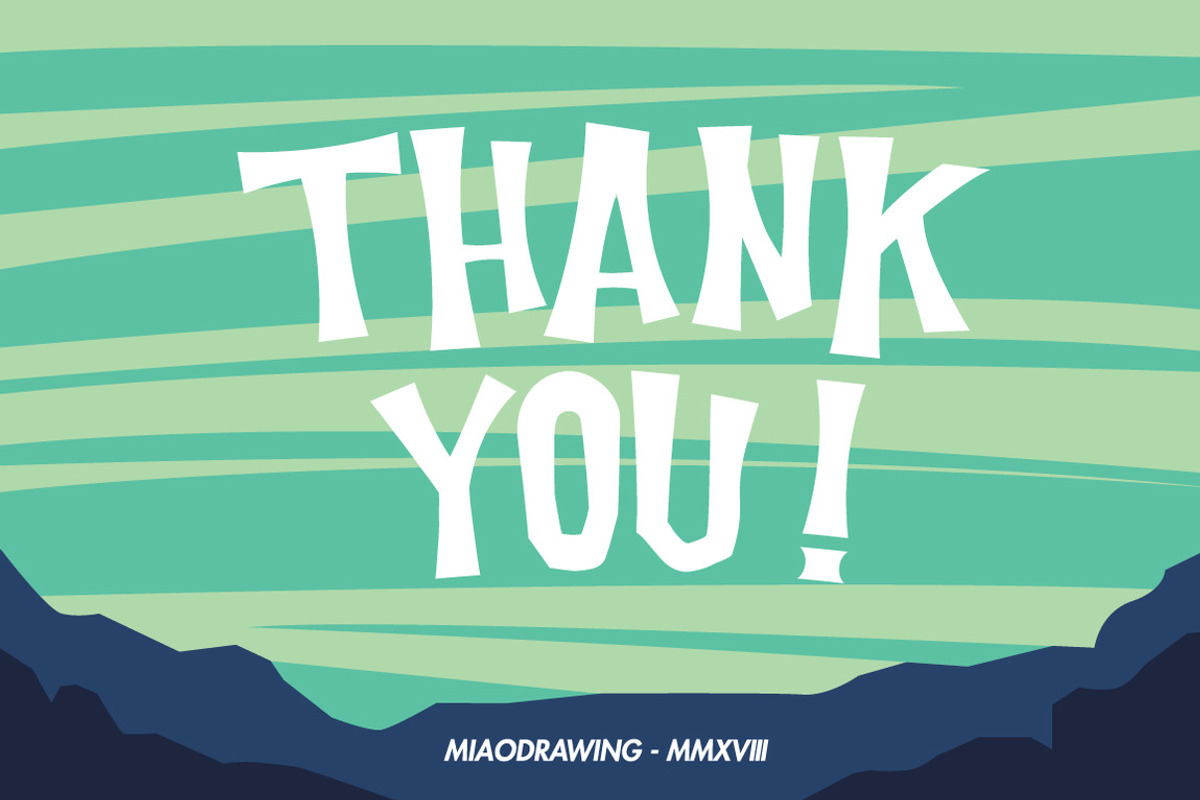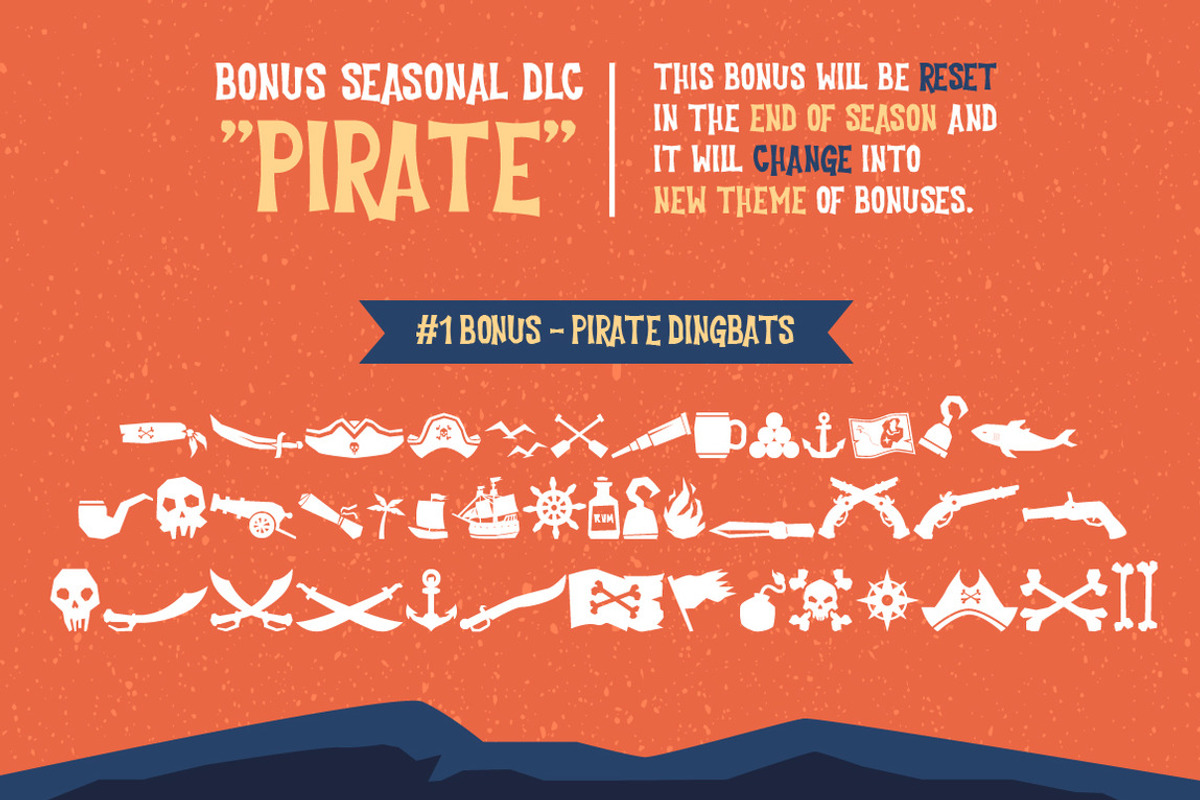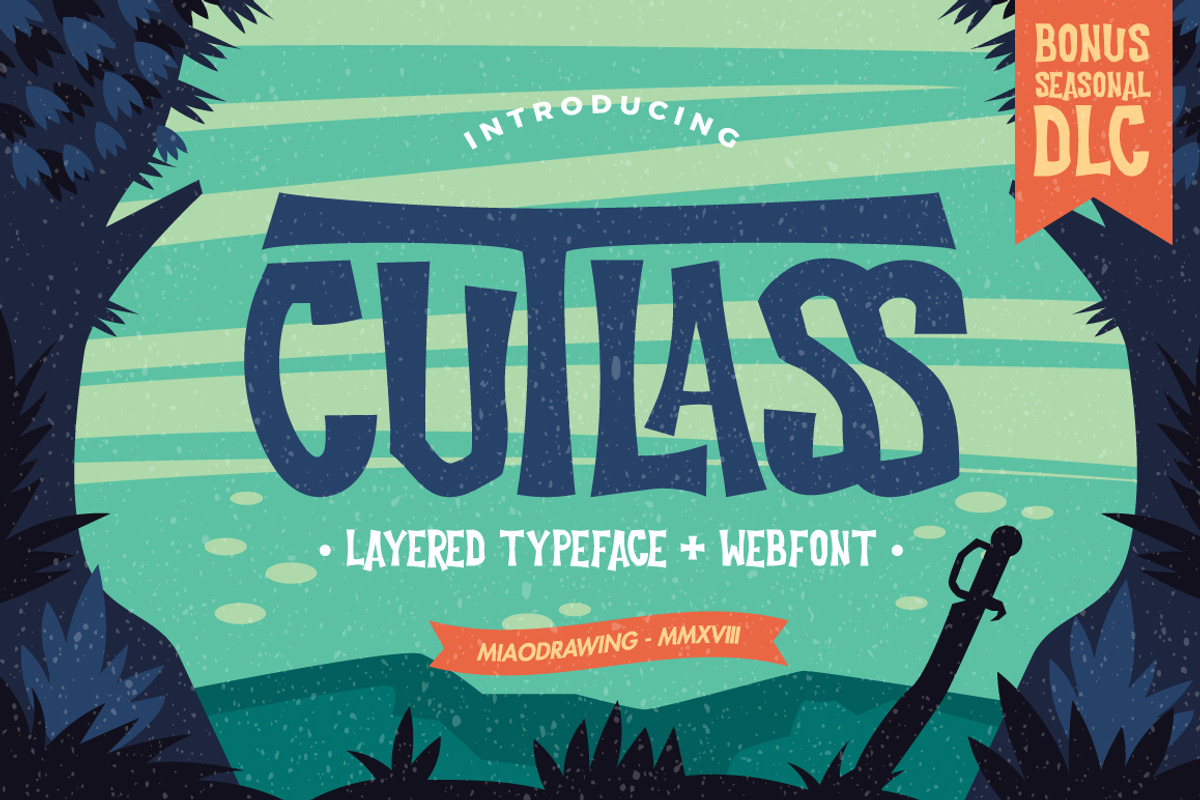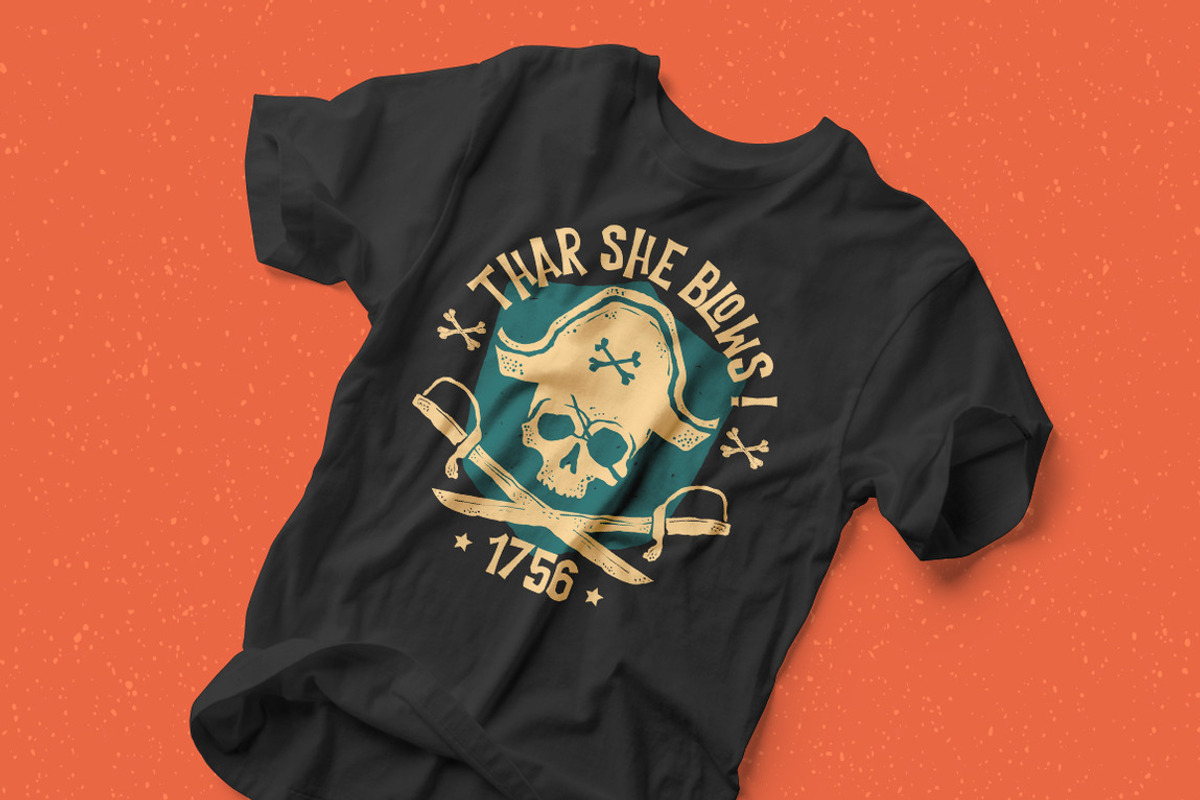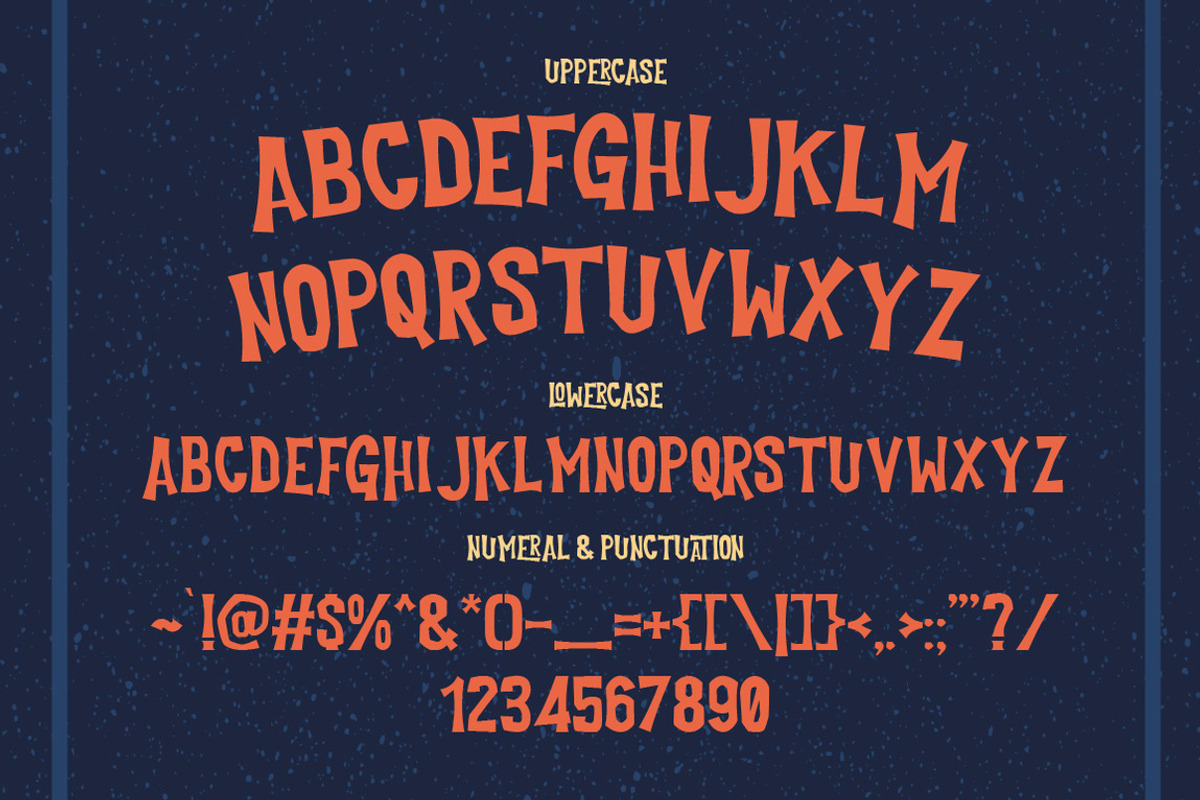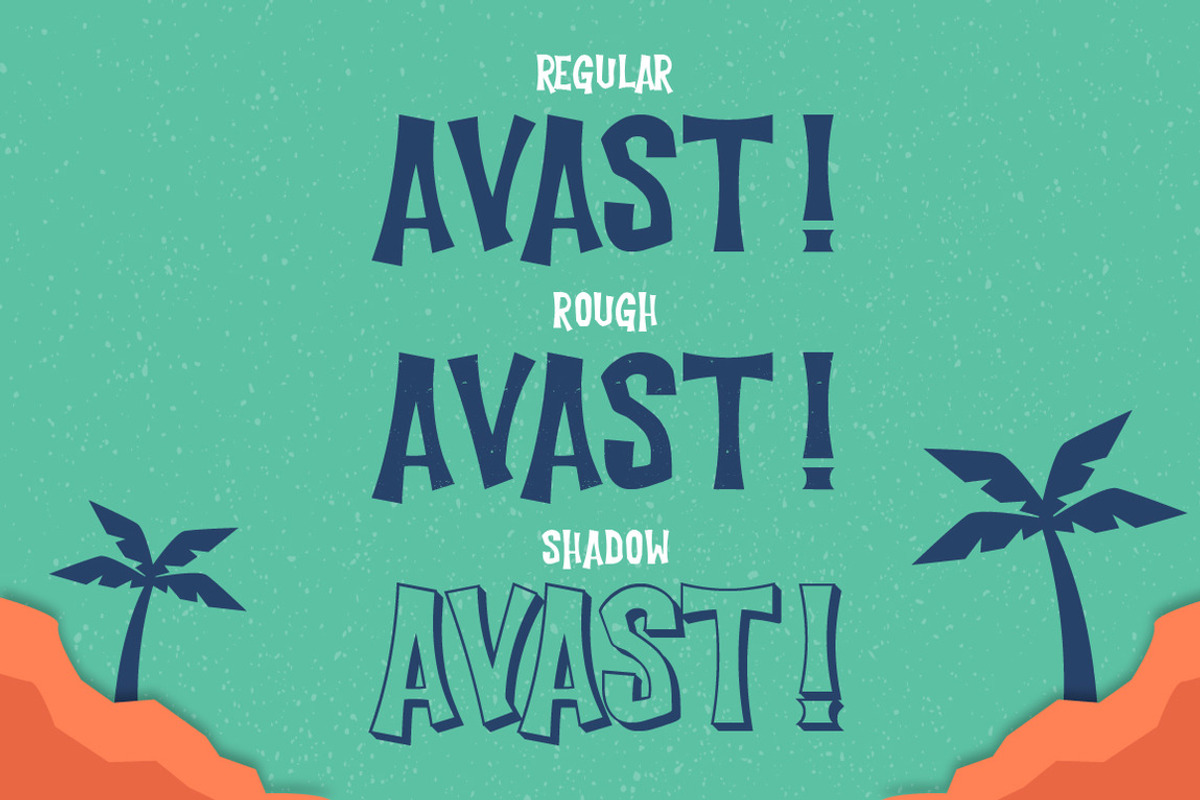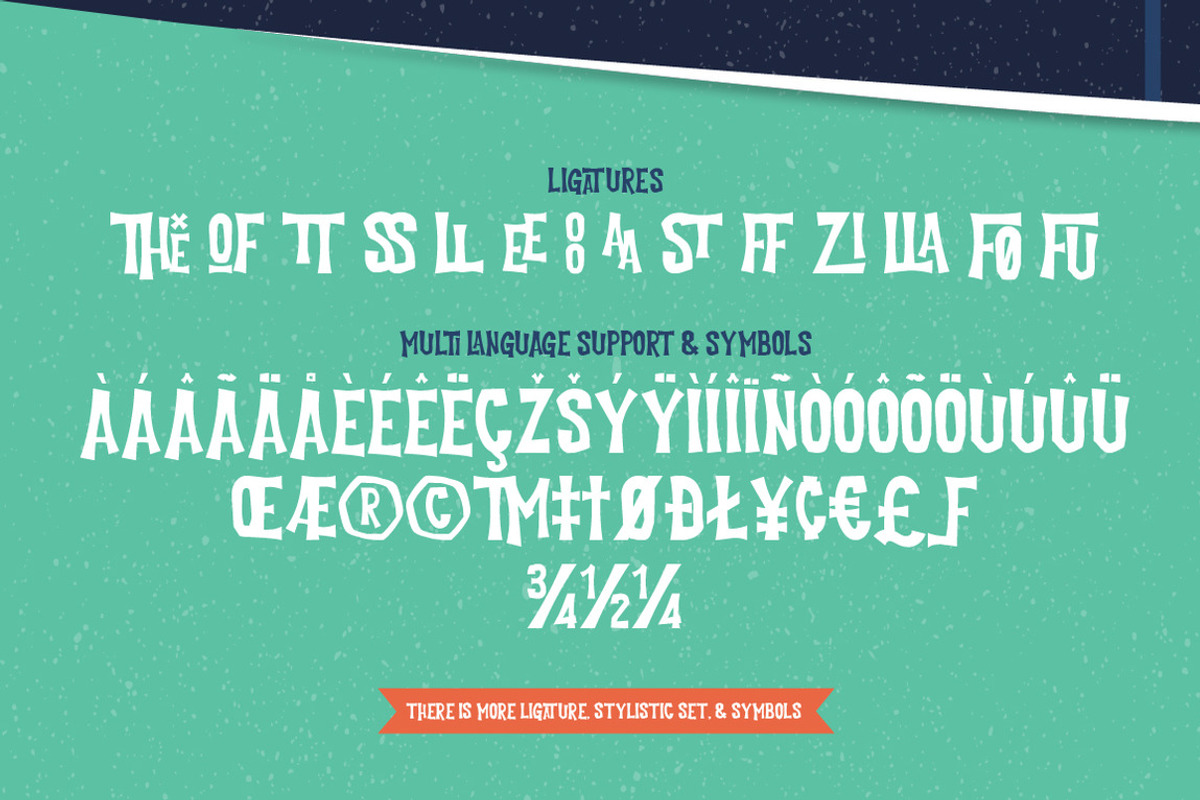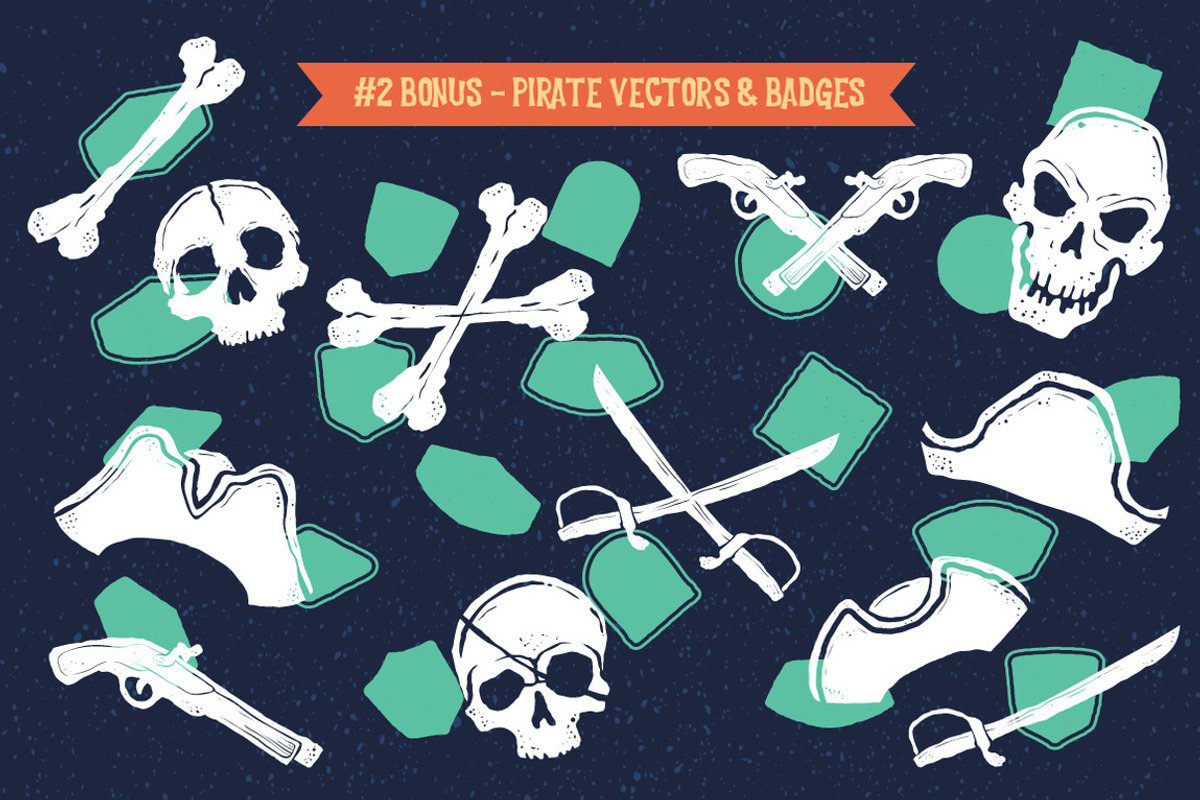
Cutlass Typeface + Bonus
Cutlass Typeface inspired by classic horror cartoon and pirates culture. Cutlass are 100% suitable for something strong, bold, also fancy and fun. Comes up with handmade extras with the vintage poster style that you can use, combine, or mix and match with each other and also with the typeface. Absolutely perfect for headings, logo, quotes, apparel design, invitations, flyer, poster, product packaging, book cover, movie, games, etc.
There's an unique bonus from this typeface called Seasonal DLC, it will be many bonus Dingbats & Vector Graphic with different Theme each Season, so you'll get an notification to download NEW bonuses Seasonal DLC when you already bought this typeface. For next Seasonal DLC bonus IT'S FREE! So you don't have to buy this typeface again.
Multi Language Support
Cutlass Bonus Seasonal DLC
OpenType features with Ligatures, Fraction, Stylistic Alternate, Multi Language Support in some characters that you can mix and match any letters to fit your design. To access the alternate glyphs, you need a program that supports OpenType features such as Adobe Illustrator CS and Adobe InDesign.